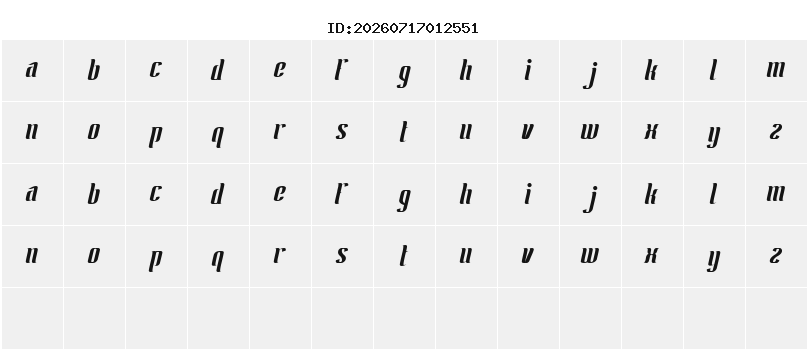
• Font Name: ANTELOPE RUN
• Full Font Name: ANTELOPE RUN
About ANTELOPE RUN.ttf
ANTELOPE RUN.ttf is a modern, elegant sans-serif font designed for ultimate readability and visual harmony. Perfect for branding, headlines, web design, and print materials.